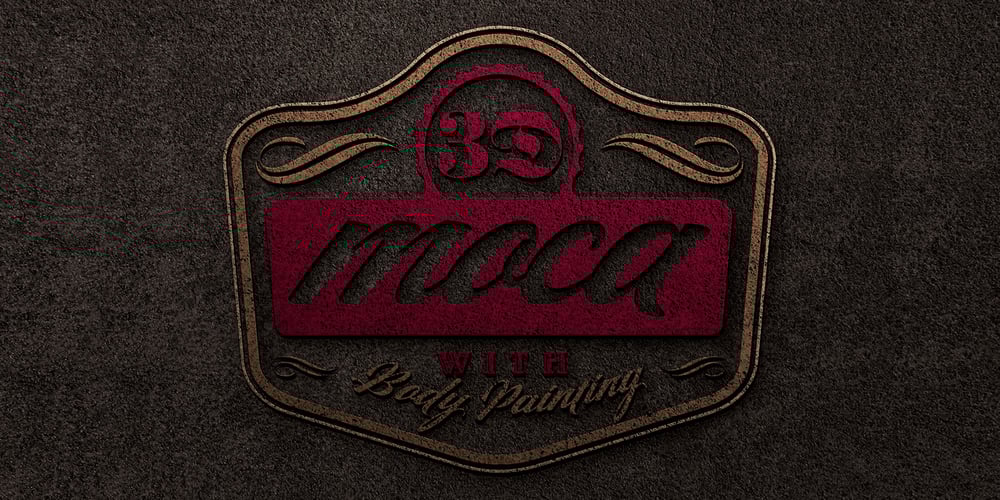
Marceline Font Family was designed by Sai Poel and published by Groen Studio. Marceline contains 1 styles and family package options. Marceline is a font bold, so, brush script that is beautiful and unique, it is a model of modern calligraphy typefaces, in combination with a calligraphy writing style. This font features Contextual Alternates, Standard ligatures, Stylistic Alternates, and Stylistic sets. Languages supported: Breton, Catalan, Czech, Danish, Estonian,French, German, Hungarian, Icelandic, Italian, Romanian, Scottish Gaelic, Slovak, Latvian, Lithuanian, Norwegian, English, Finnish, Polish, Portuguese, Slovenian, Spanish, Swedish, Turkish, Welsh. Basically, all European languages that are based on latin alphabet Can be used for various purposes.such as headings, logos, wedding invitation, t-shirt, letterhead, labels, news, posters, badges etc. To enable the OpenType Stylistic alternates, you need a program that supports OpenType features such as Adobe Illustrator CS, Adobe Indesign & CorelDraw X6-X7.